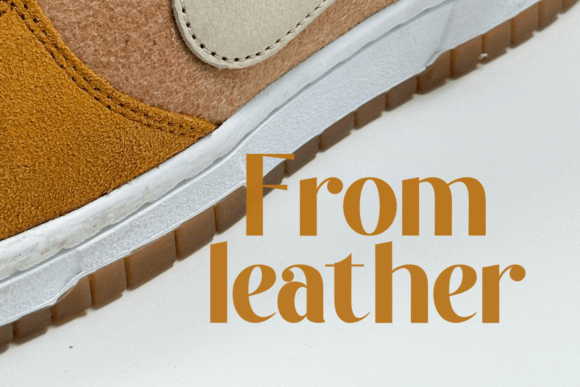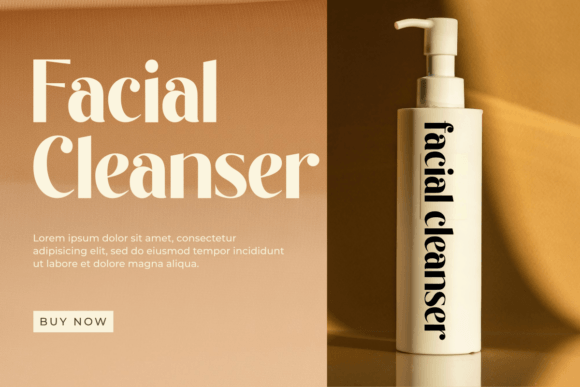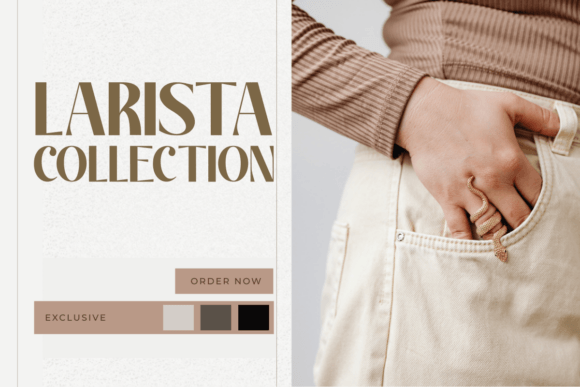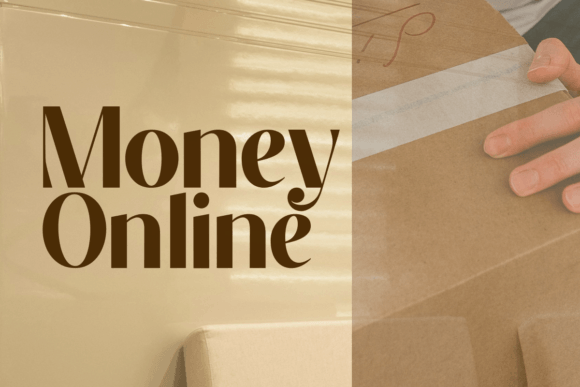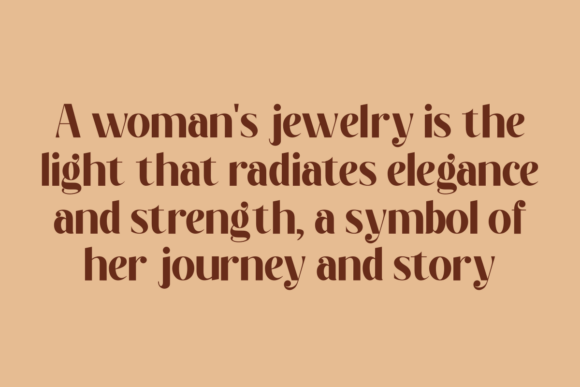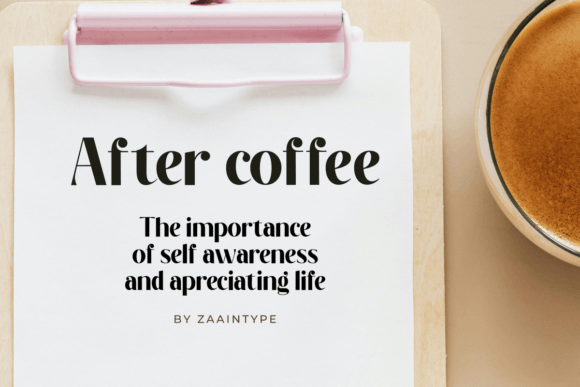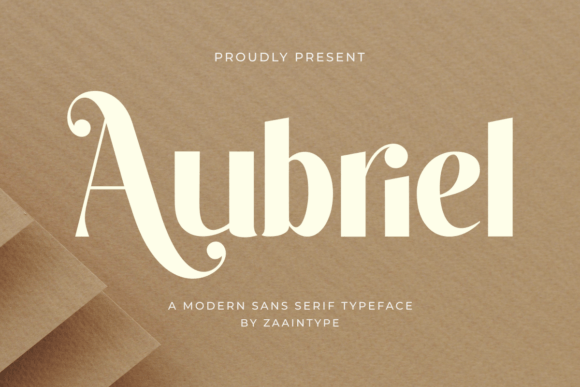
Unveiling Aubriel Font: The Epitome of Elegance and Clarity in Typography
In the realm of design, the choice of typography can make or break the visual identity of a project. A font can elevate a design, convey a message, and evoke emotions, making it a crucial element in the creative process. Among the myriad of typefaces available, Aubriel stands out as a beacon of elegance and lucidity, crafted to be the heart of your design endeavors. This article delves into the world of Aubriel Font, exploring its features, applications, and the unique value it offers to designers and crafters.
The Essence of Aubriel: Elegant Simplicity
Aubriel is more than just a typeface; it’s an embodiment of elegant simplicity. Its immaculate strokes and harmonized dimensions make it a versatile font that fits seamlessly across various uses, from brand identities to editorials, from digital interfaces to signage. The pared-down beauty of Aubriel ensures that it delivers a polished impression, making it the go-to choice for designers seeking a sophisticated aesthetic.
Key Features of Aubriel Font
- Immaculate Strokes: Aubriel’s strokes are meticulously crafted to provide a clean and refined look, ensuring that your designs exude elegance and poise.
- Harmonized Dimensions: The font’s dimensions are carefully balanced to offer optimal readability, making it perfect for both impactful headers and immersive body content.
- Versatility: Aubriel’s versatility is one of its standout features, allowing it to be used across a wide range of applications, from digital platforms to print materials.
- Contemporary Essence: Aubriel brings a contemporary essence to your designs, ensuring that they feel modern and relevant.
Applications of Aubriel Font
Aubriel’s versatility makes it suitable for a myriad of applications, including:
- Brand Identities: Use Aubriel to create a lasting impression with your brand’s visual identity, conveying elegance and sophistication.
- Editorials: Elevate your editorial designs with Aubriel’s refined and elegant aesthetic, perfect for magazines, newspapers, and online publications.
- Digital Interfaces: Enhance your digital platforms with Aubriel’s clean and modern look, ensuring a seamless user experience.
- Signage: Make a statement with Aubriel’s impactful and elegant typography, ideal for signage and outdoor displays.
Why Designers Love Aubriel
Designers and crafters adore Aubriel for its unique blend of elegance, clarity, and versatility. Here are a few reasons why:
- Optimal Readability: Aubriel ensures that your message is conveyed with ease, providing optimal readability across various applications.
- Polished Impression: Aubriel’s elegant simplicity makes it the perfect choice for designers seeking a polished and sophisticated aesthetic.
- Contemporary Feel: Aubriel brings a contemporary essence to your designs, ensuring that they feel modern and relevant.
In conclusion, Aubriel Font is a game-changer in the world of typography, offering a unique blend of elegance, clarity, and versatility. Whether you’re a designer, crafter, or simply someone who appreciates beautiful typography, Aubriel is an excellent choice for your design endeavors. With its immaculate strokes, harmonized dimensions, and contemporary essence, Aubriel is poised to become the heart of your design projects, delivering a polished impression that echoes with breezy sophistication.